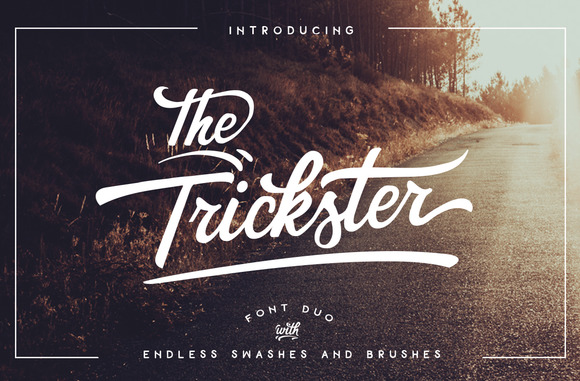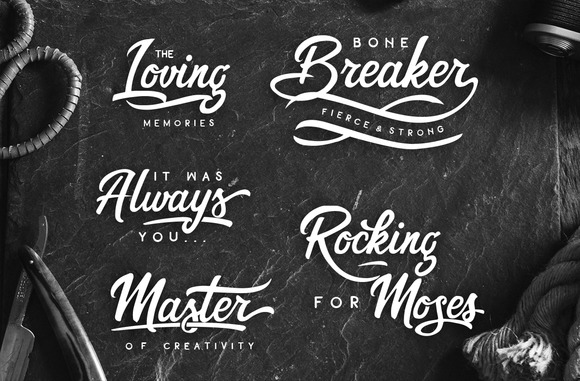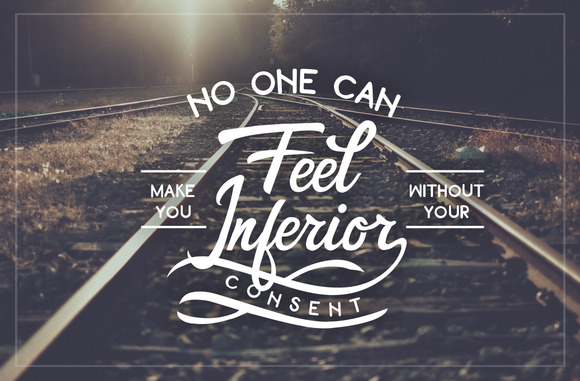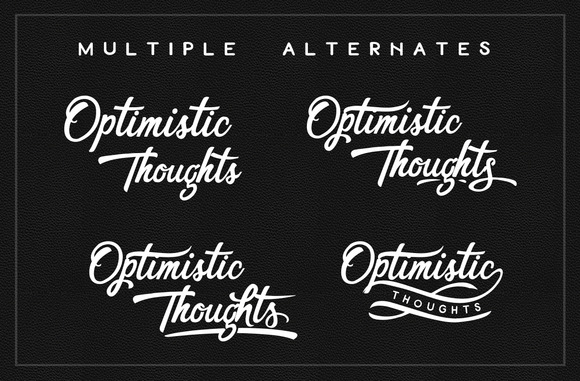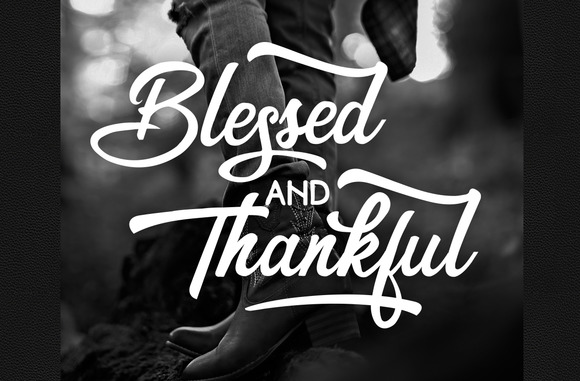
The Trickster Font
About The Trickster Font
The Trickster is a stunning detailed font duo that comes in 2 versions. One stunning font with beautiful swashes and swooshes and a regular version.
The Trickster font comes with loads of alternates and brushes. The Trickster is PUA encoded and works with any application.